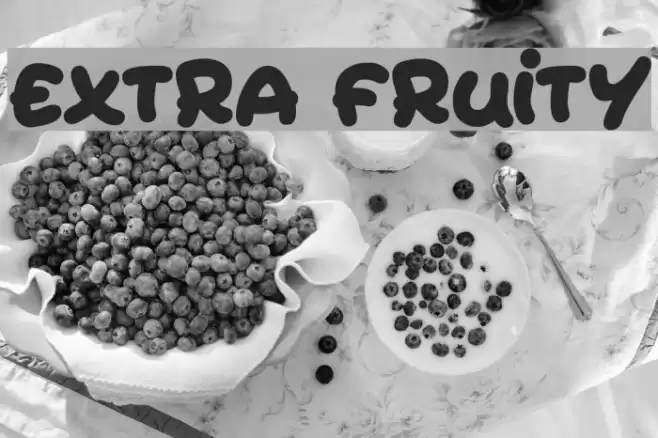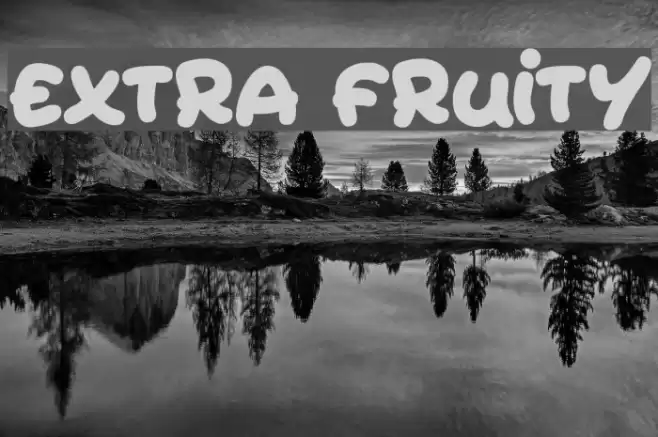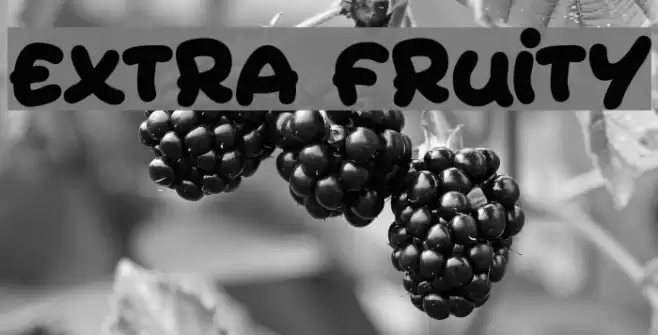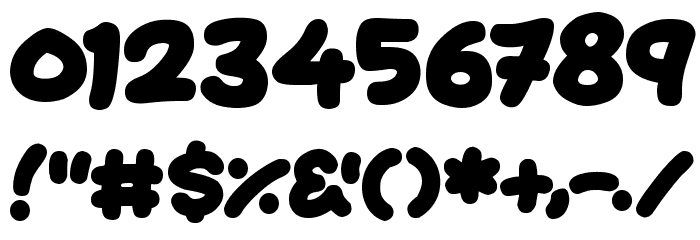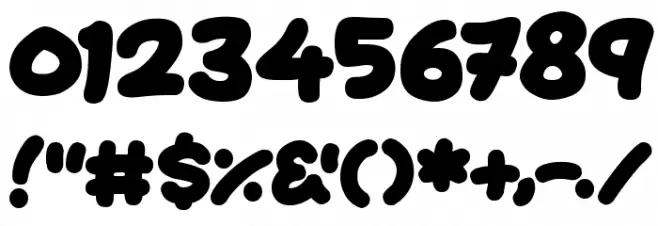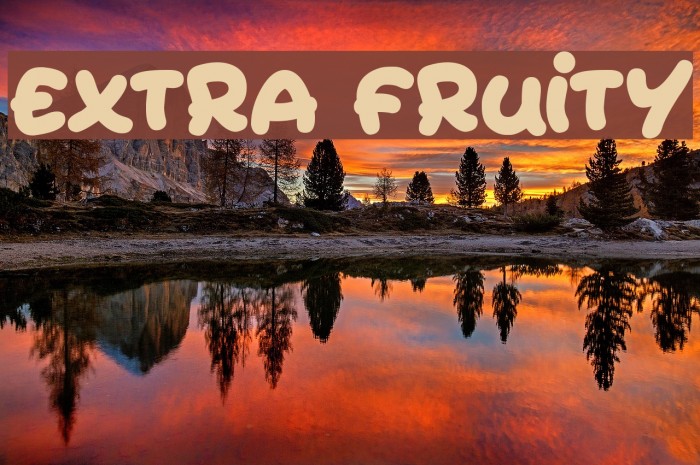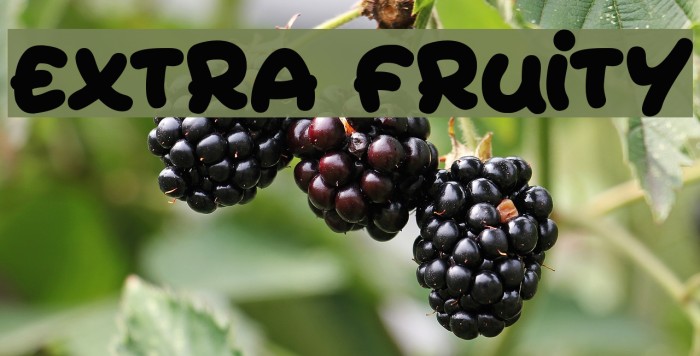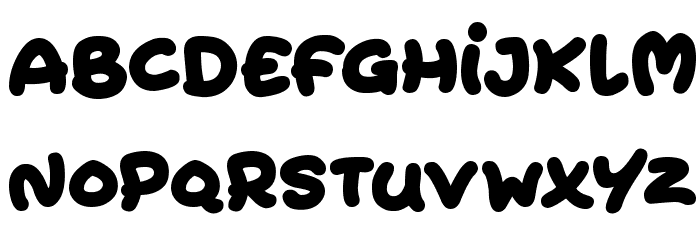
Extra Fruity Font
Extra Fruity Description
This playful and bold font features rounded, bubbly characters that exude a sense of fun and whimsy. The letters are thick and substantial, with a consistent stroke width that gives them a solid, impactful appearance. The rounded edges and smooth curves contribute to a friendly and approachable feel, making it ideal for designs that aim to capture attention with a lighthearted tone. The numbers and special characters maintain the same playful style, ensuring consistency across all elements. This font is perfect for projects that require a touch of creativity and joy.
A bold, playful font with rounded, bubbly characters from Uncategorized fonts.
- Proposed Projects: Ideal for children's books, playful branding, party invitations, and creative posters.
- Overall Style: Playful, Fun